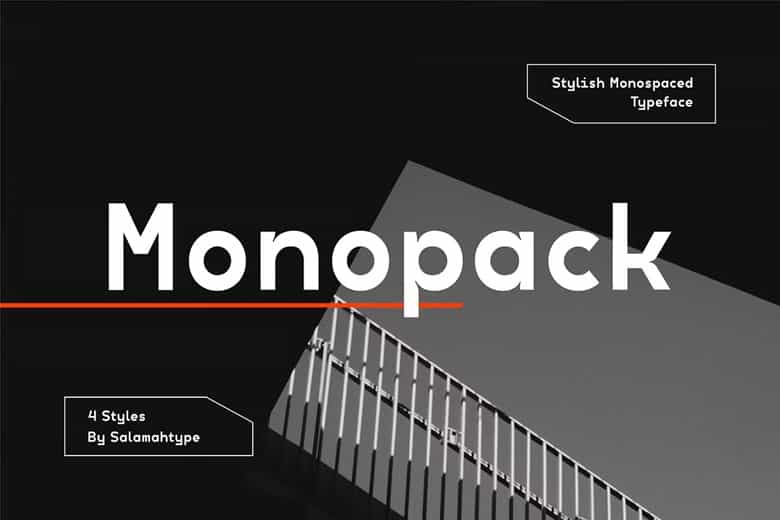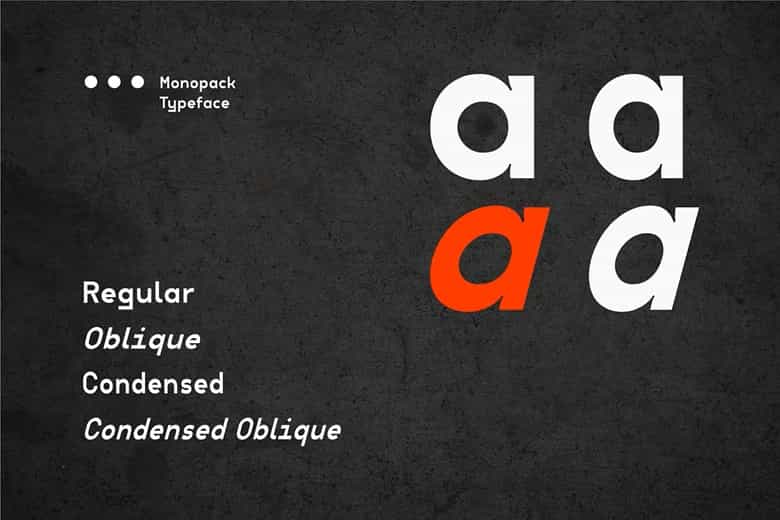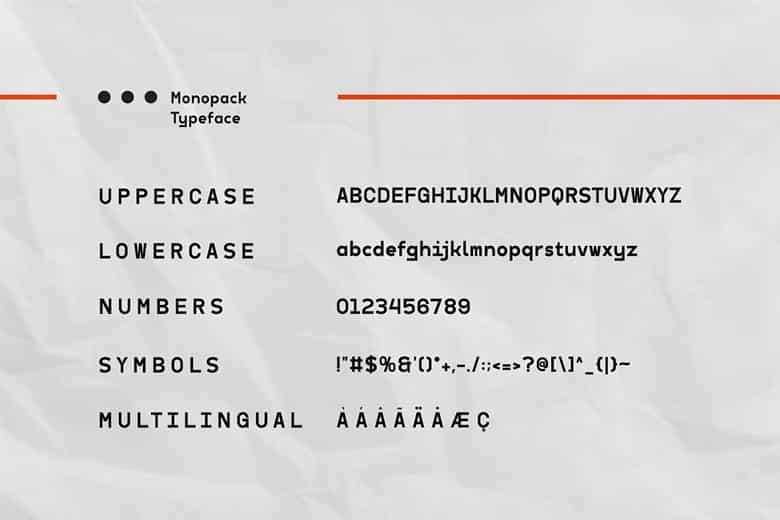
Monopack is a contemporary monospace sans serif typeface with four different styles (Regular, Oblique, Condensed, Condensed Oblique). It is clean and readable, but some characters include small ink traps, adding a nice and stylish touch. As their name suggests, monopack works great for titles, logos, interfaces and any design that needs to have a clean and technical feel.